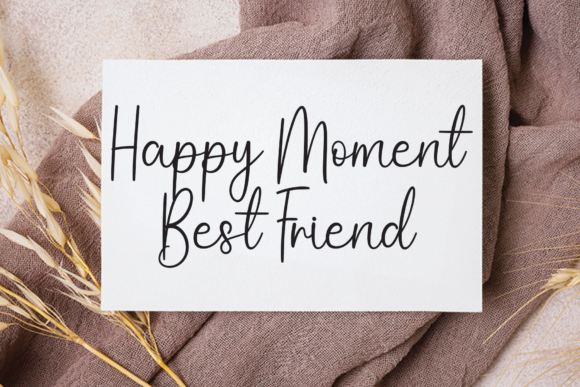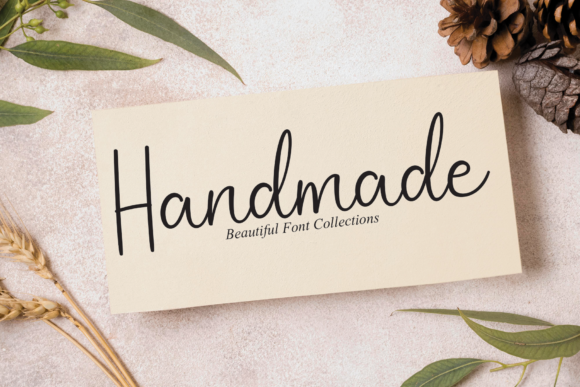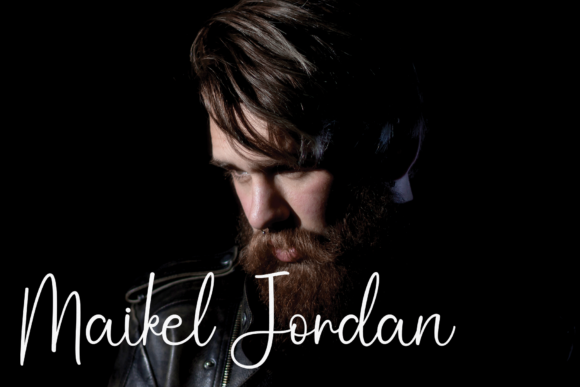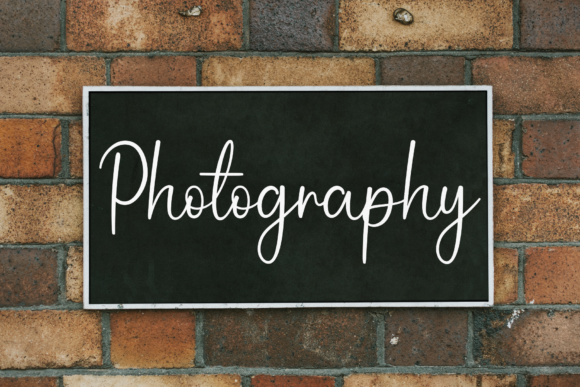
Introducing Blue Font: The Sweet Handwritten Font for Stunning Designs
Are you a designer or crafter looking for a unique and versatile font to elevate your creative projects? Look no further than Blue Font, a sweet handwritten font that is sure to impress. Crafted with great care, Blue Font is designed to produce exceptional results, making it perfect for a wide range of applications, from posters and flyers to prints and more.
The Story Behind Blue Font
Blue Font is a carefully crafted handwritten font that is designed to bring a touch of elegance and sophistication to any design project. The font’s creator has poured their heart and soul into perfecting every detail, from the subtle imperfections to the flowing connections between letters. The result is a font that exudes warmth, personality, and style.
Endless Possibilities with Blue Font
One of the best things about Blue Font is its incredible versatility. Whether you’re designing a poster, flyer, or print, this font is sure to look stunning. Its sweet and elegant style makes it perfect for a wide range of projects, from:
- Posters and flyers for events and promotions
- Print materials, such as brochures and business cards
- Digital designs, including social media graphics and email newsletters
Why Choose Blue Font?
So why choose Blue Font over other fonts on the market? Here are just a few reasons why designers and crafters love this font:
- Unique and distinctive style: Blue Font has a one-of-a-kind style that will set your designs apart from the crowd.
- Elegant and sophisticated: This font exudes elegance and sophistication, making it perfect for high-end designs.
- Easy to read: Despite its elegant style, Blue Font is incredibly easy to read, even at small sizes.
- Highly versatile: Use Blue Font for a wide range of projects, from posters and flyers to prints and digital designs.
Tips for Using Blue Font
To get the most out of Blue Font, here are a few tips to keep in mind:
- Experiment with different sizes: Blue Font looks great at a range of sizes, from large headings to smaller body text.
- Play with colors: While the font’s name is “Blue,” it’s not just limited to blue! Try experimenting with different colors to find the perfect match for your design.
- Mix and match with other fonts: Blue Font pairs well with a range of other fonts, so don’t be afraid to get creative and try out different combinations.
Key Features of Blue Font
- Handwritten font with a sweet and elegant style
- Unique and distinctive design
- Highly versatile and easy to use
- Perfect for posters, flyers, prints, and digital designs
- Easy to read, even at small sizes